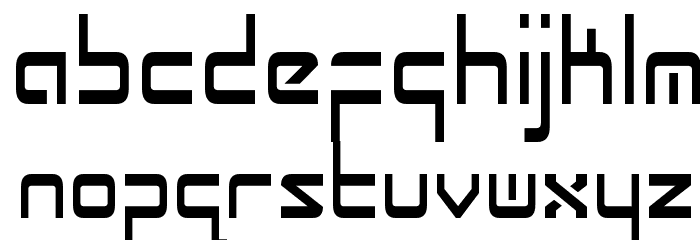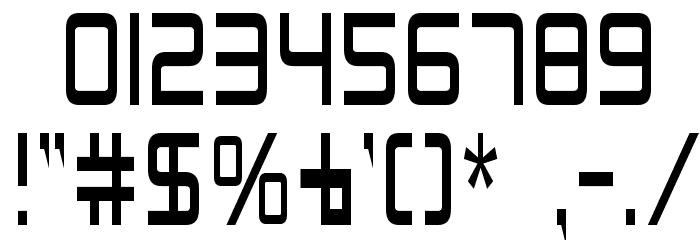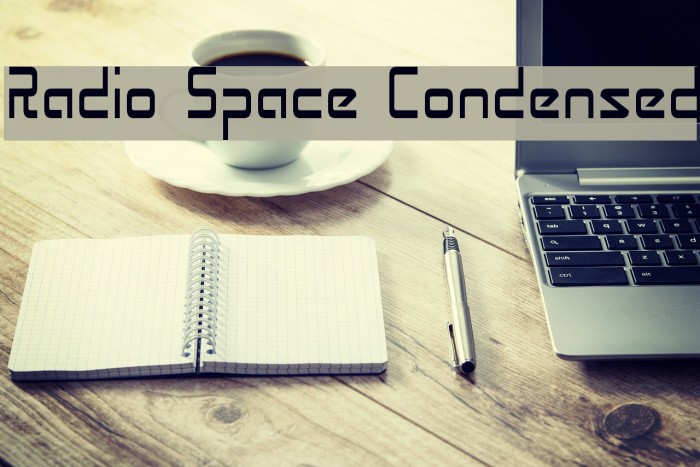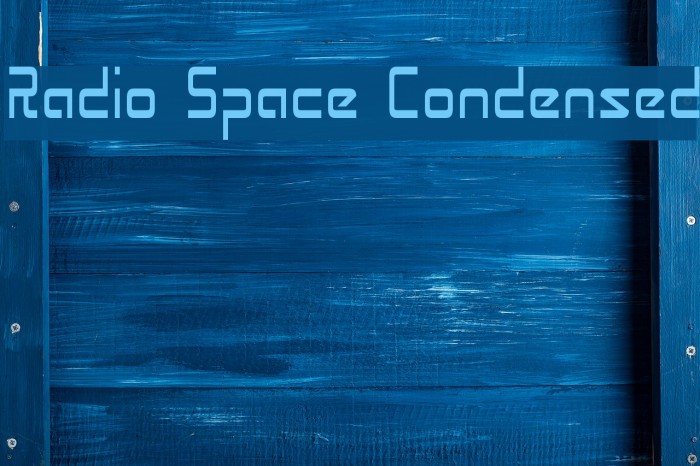
Radio Space Condensed Font
This font features a futuristic and geometric design with a condensed structure. The characters are composed of straight lines and sharp angles, giving it a modern and sleek appearance. The uppercase and lowercase letters maintain a consistent height, enhancing readability while preserving a unique style. The numbers and special characters follow the same design principles, ensuring uniformity across all glyphs. This font is ideal for projects that require a contemporary and tech-inspired aesthetic.
A futuristic, geometric font with a condensed and sleek design.
- Proposed Projects: Ideal for technology branding, sci-fi themed designs, modern posters, and digital interfaces.
- Use Case: Headlines, Logos, Digital interfaces